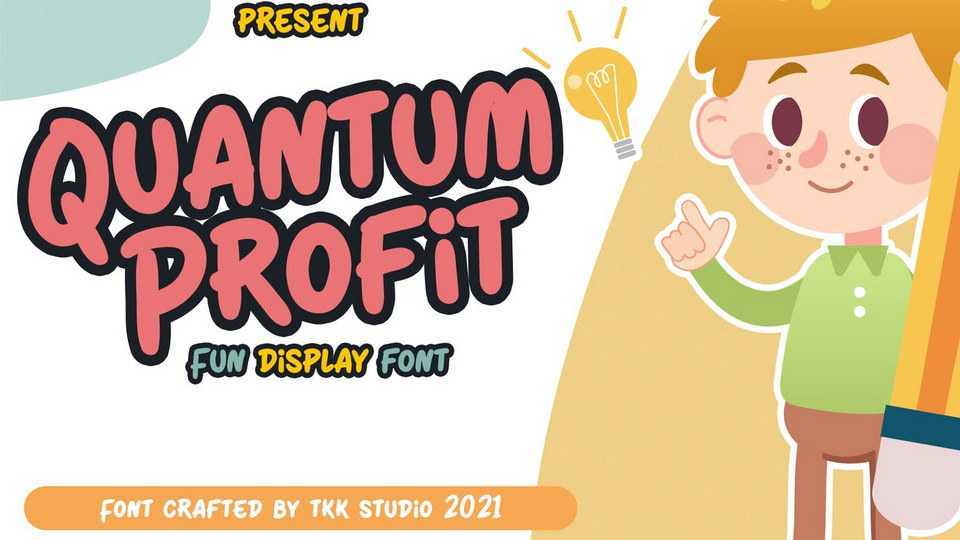
Download Quantum Profit font, a funny kids typeface. You will find Quantum Profit match perfectly when being used as a book title, display, game title, and children related wording.